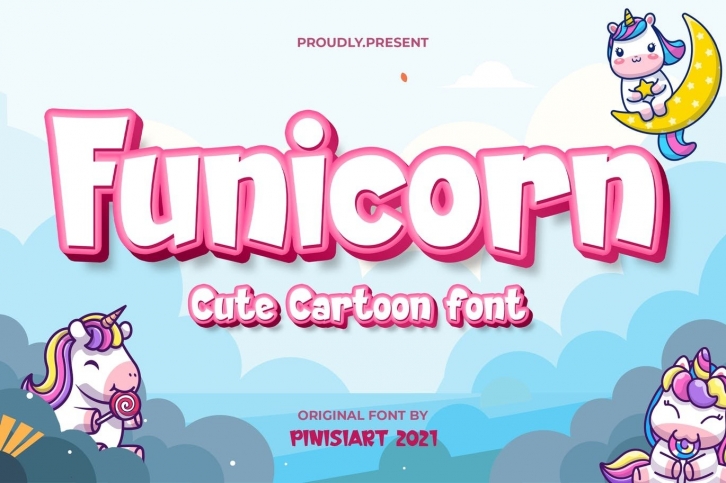
Funicorn is a beautiful font that was designed by PinisiART. It's a great choice for designers and creatives who need such a font. It was released on September 20, 2022 and the file size is 6.52 MB. Funicorn may give a more youthful, expressive and casual look to your project. It is a very beautiful, refined, elegant, and high-quality font.